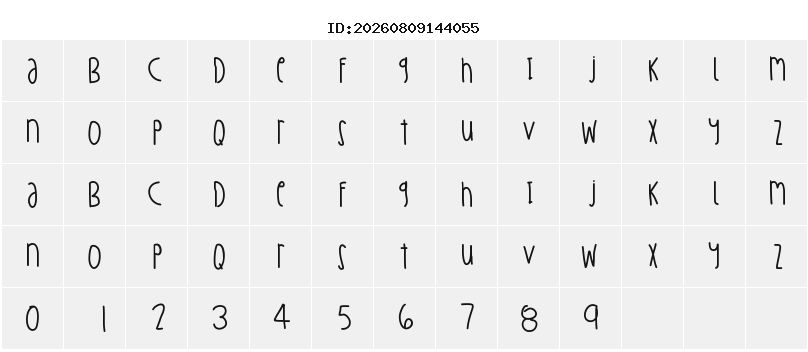
Pastaccio Preview
• Font Name: Pastaccio
• Full Font Name: Pastaccio
About Pastaccio.ttf
Pastaccio.ttf is a modern, elegant sans-serif font designed for ultimate readability and visual harmony. Perfect for branding, headlines, web design, and print materials.